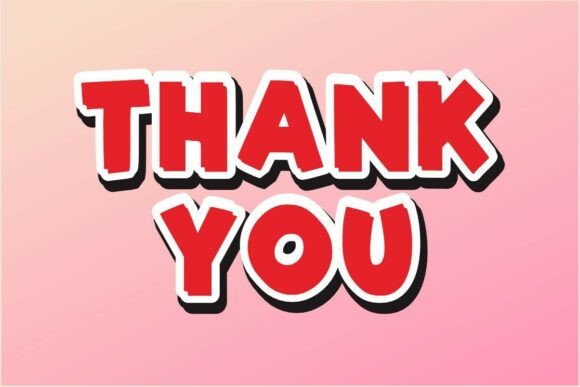
Introduction to Merry Disney Font
Introducing “Merry Disney,” a charming bubble font designed specifically for children.
Each character is stunning with a charming, modern aesthetic, easy on the eyes, and exudes irresistible charm This font’s versatility is its hallmark; its refined sublimation design is perfect for t-shirts, mugs, tote bags, and even bringing animations or comics to life.
Key Features of Merry Disney Font
Why Choose Merry Disney Font?